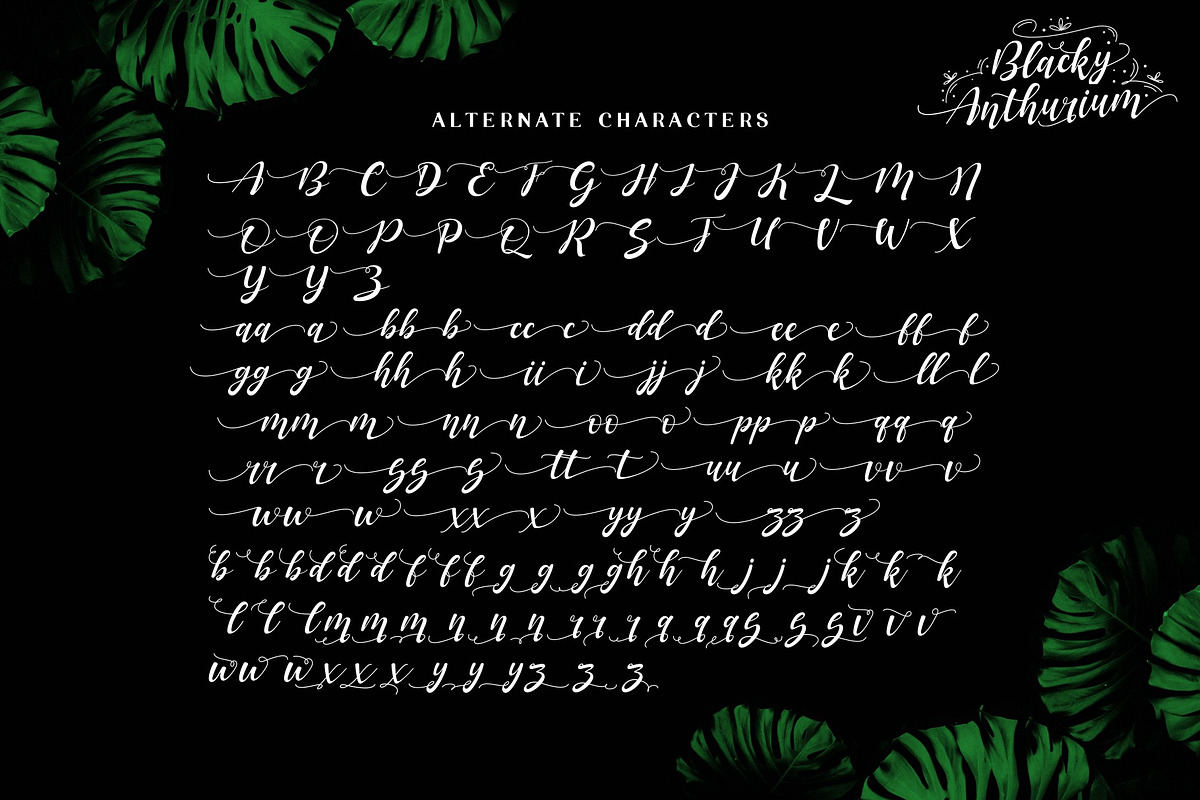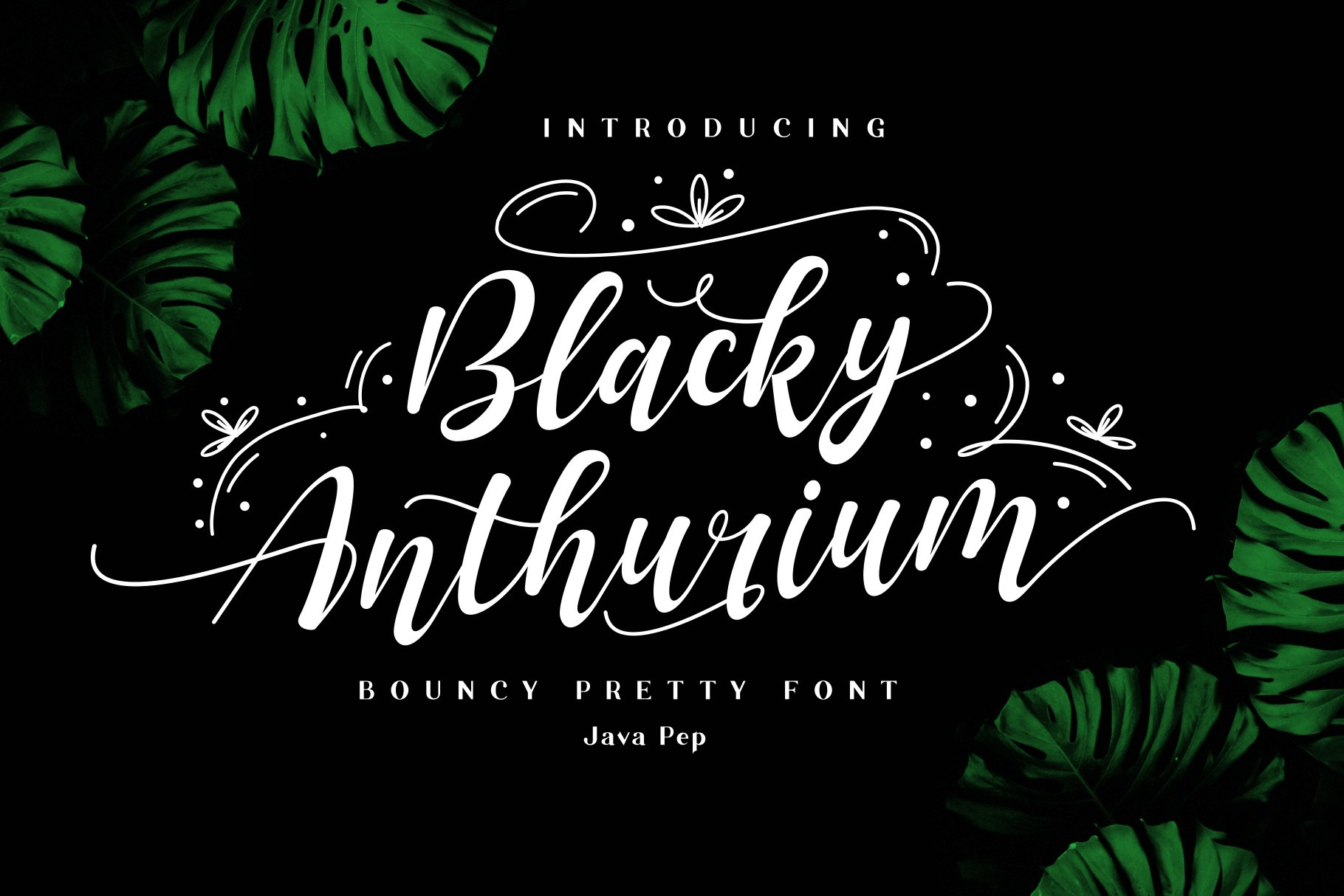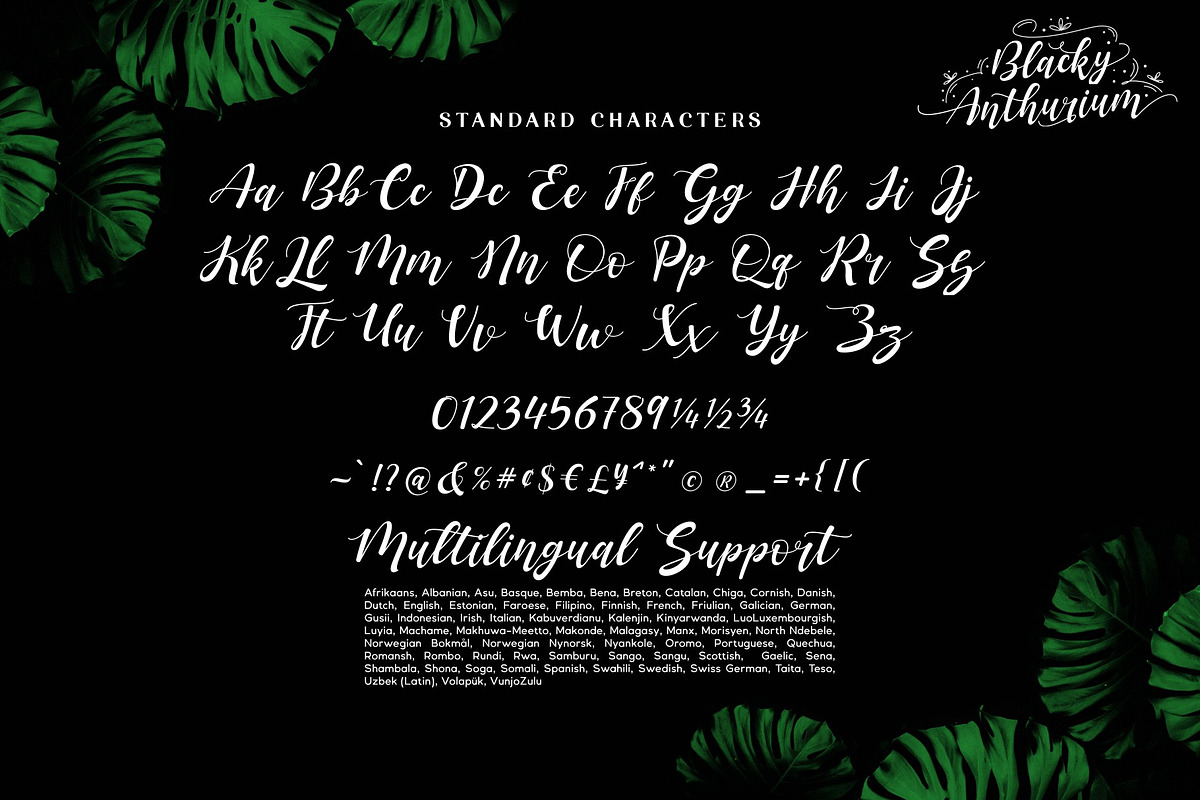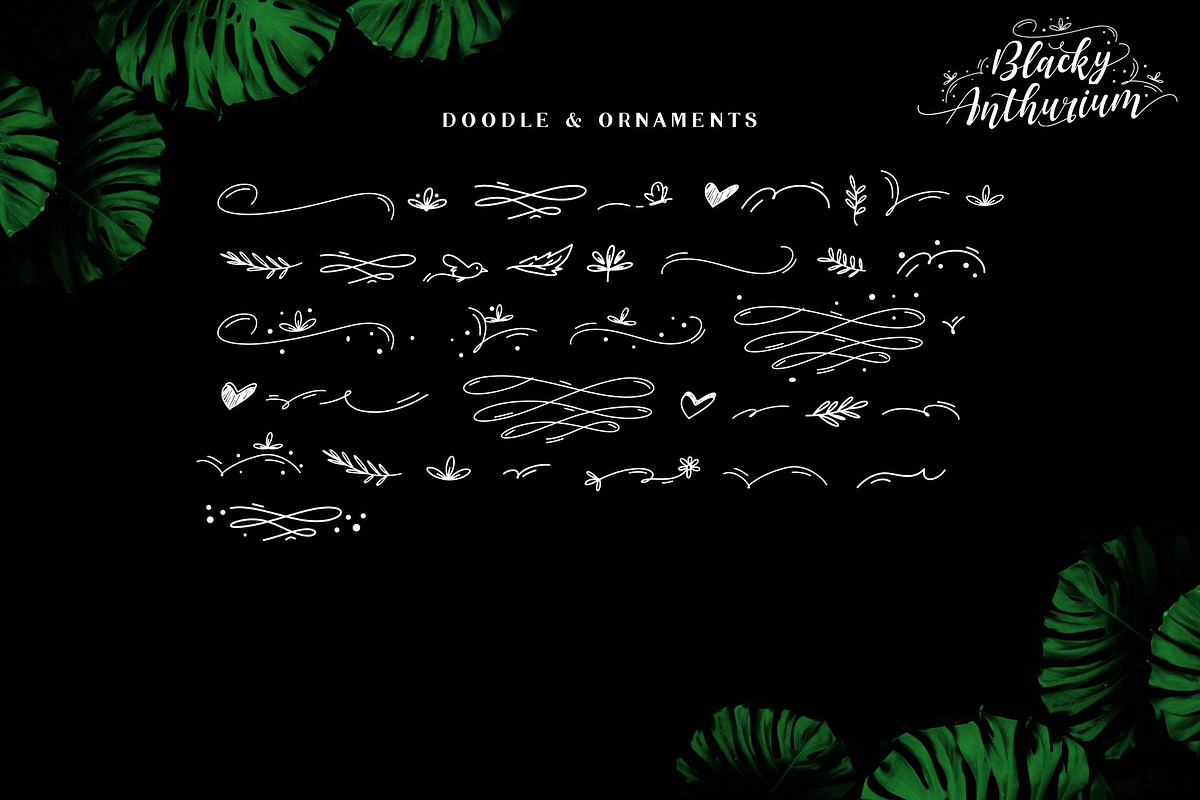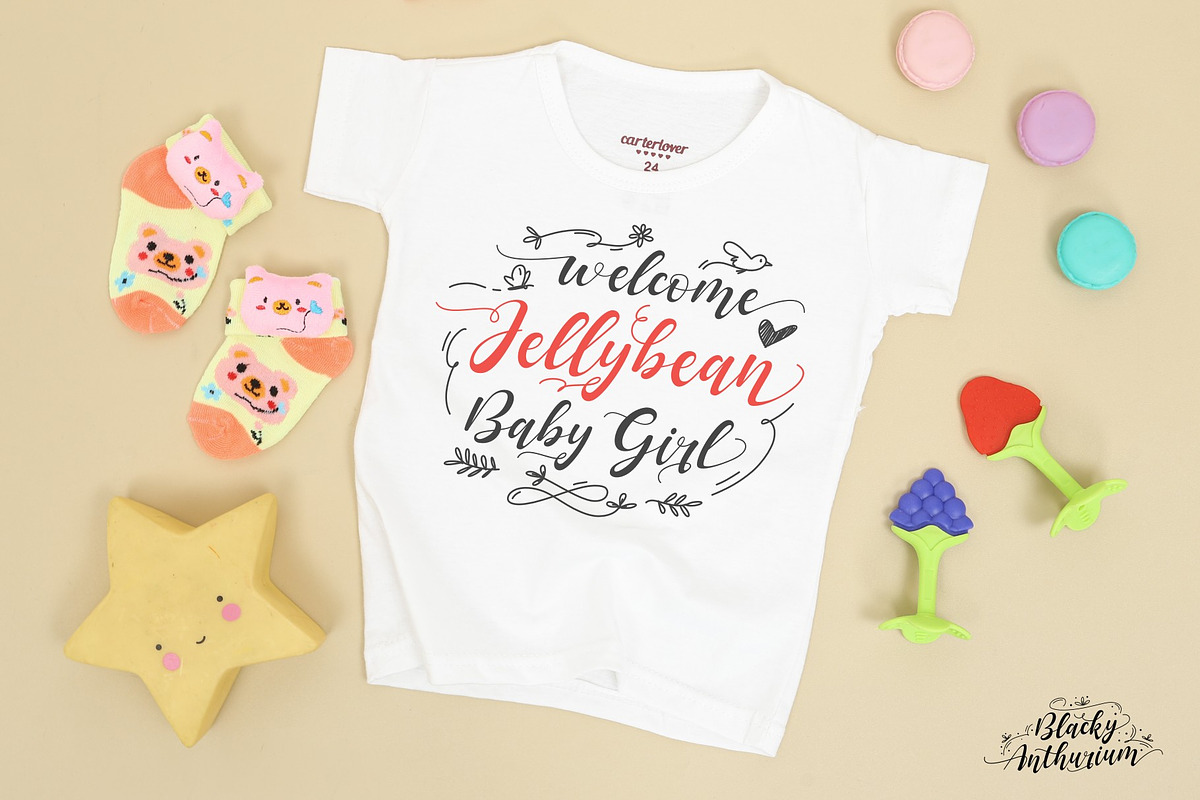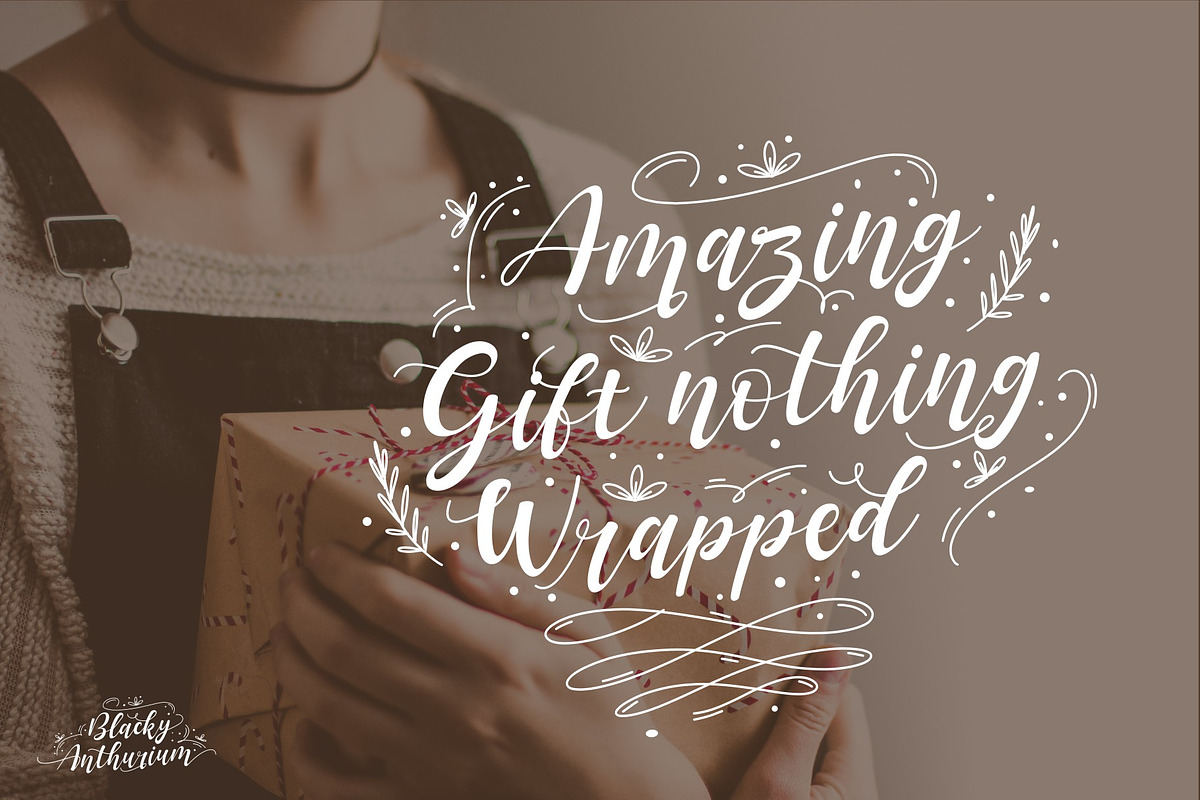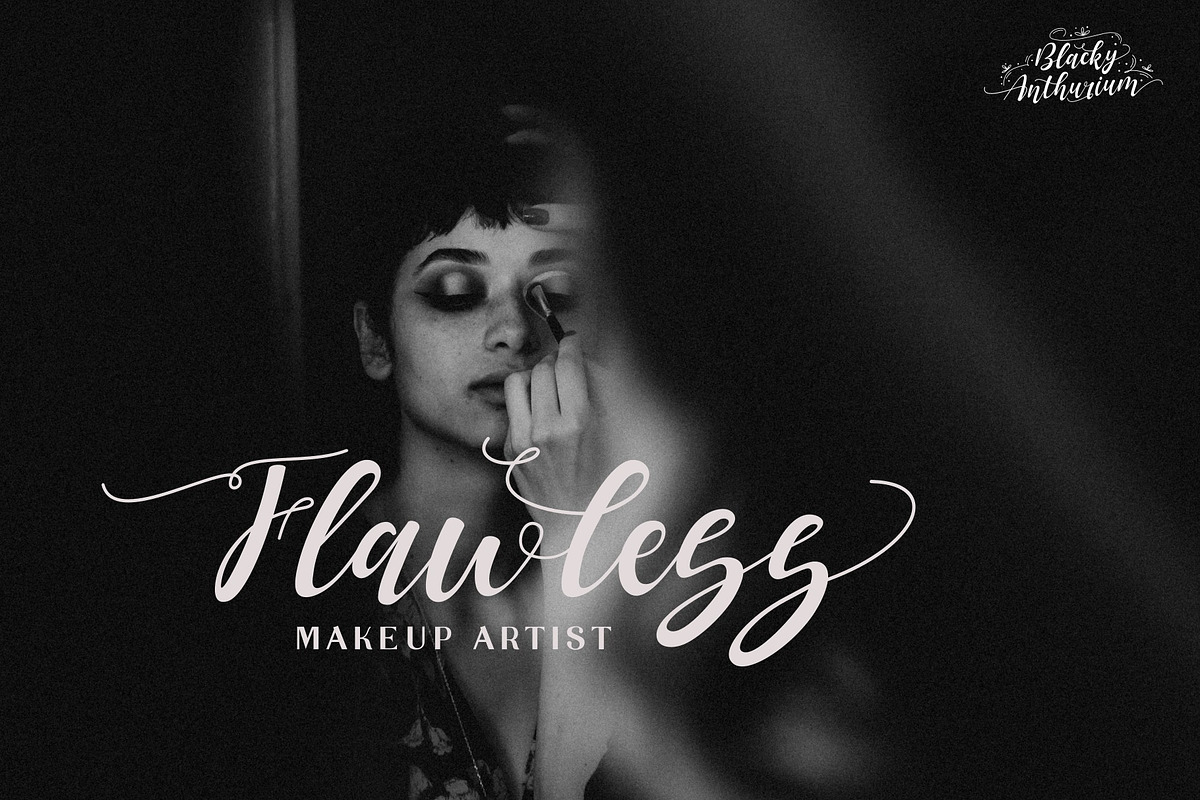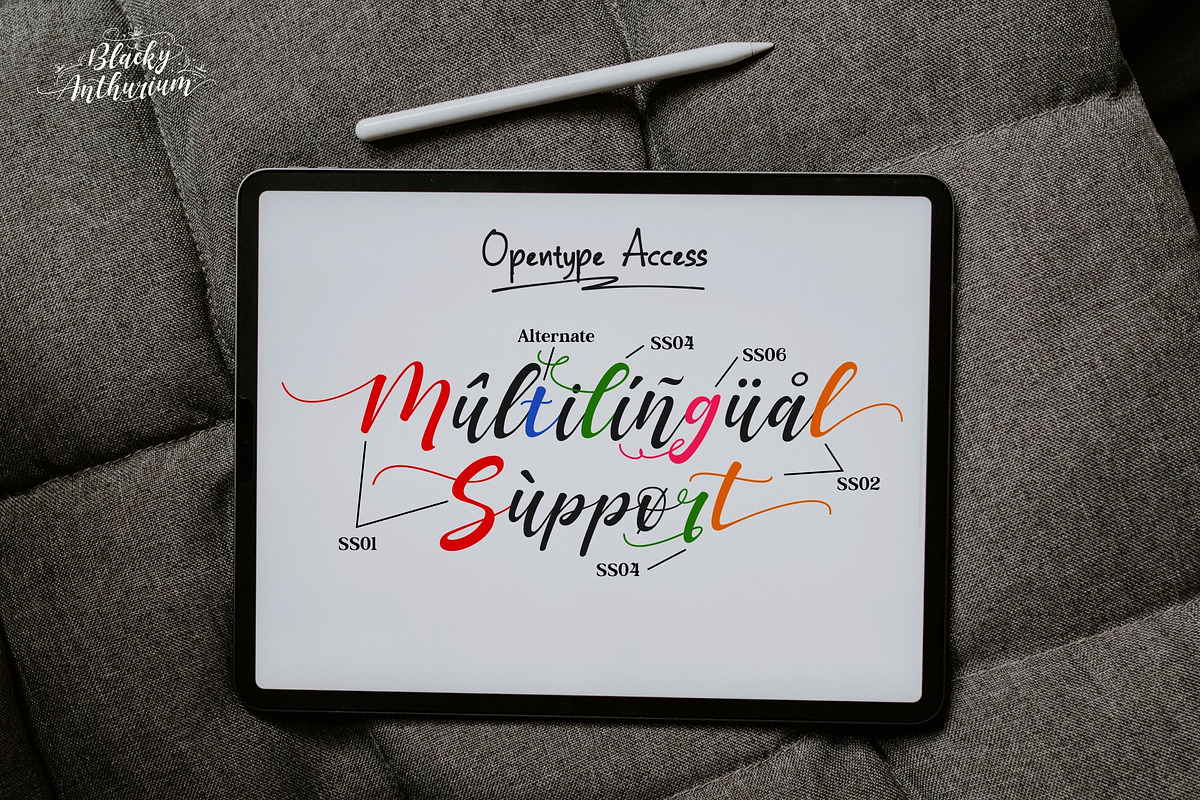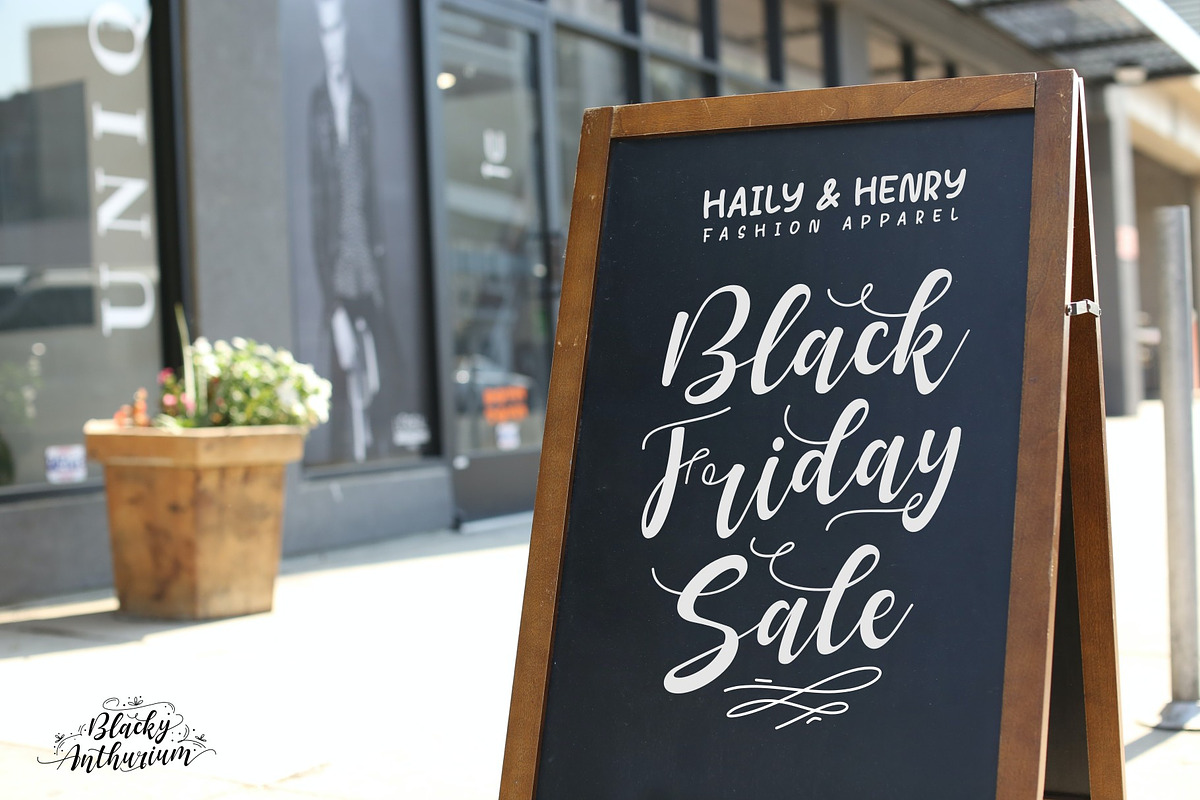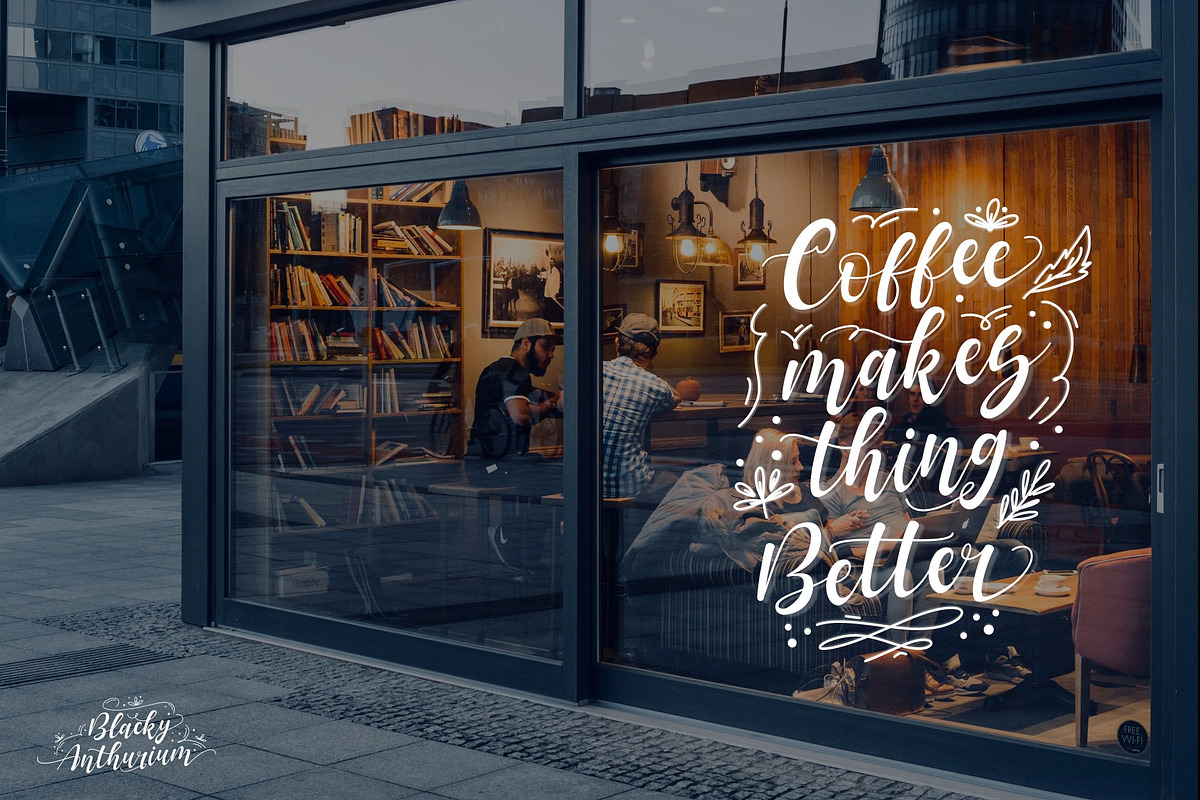
Blacky Anthurium /bouncy pretty font
Proudly present a bouncy pretty script called Blacky Anthurium. Every strike of the shape brings the vibes of pretty and elegant. Blacky Anthurium font comes with a lot of alternates, every letter uppercase and lowercase has the alternate characters from SS01-SS06. For more outstanding looks, this font comes with doodles and ornaments characters too so you can mix and match it for outstanding looks. Blacky Anthurium font is perfect for logo font, branding, greeting card, cut files for quotes, silhouette font design, monogram font, etc.